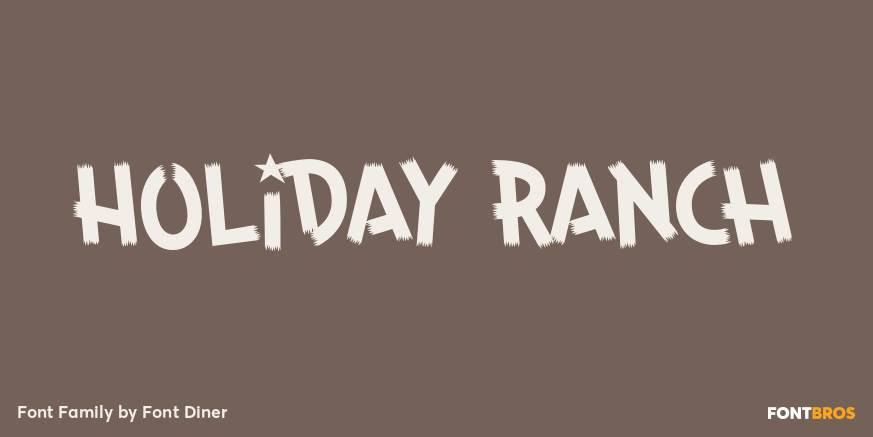
HomeFont BrosRetro (1936-1965)Holiday Ranch Retro (1936-1965)Special EffectWacky Holiday Ranch FacebookXPinterestWhatsApp 1 of 1 About Holiday Ranch Pack your bags! It\’s time to saddle up and head on over to the Holiday Ranch! This playful tipsy font looks like it was painted on with a big fat paintbrush!  DOWNLOAD NOW People also explored Creative Solution Font Homelands Lollijoy Blizzard Font Shurjota Font Millennial Script Bryan Adam Font Khemylau Font Gracela Mersa Font So Lovely Font 317 0 TagsHoliday Ranch Font Previous articleSteelfish SteeledNext articleVice Monogram LEAVE A REPLY Cancel reply Comment: Please enter your comment! Name:* Please enter your name here Email:* You have entered an incorrect email address! Please enter your email address here Website: Save my name, email, and website in this browser for the next time I comment. Personal Use Free Santhony Personal Use Free Read more about this font Vogue Font Personal Use Free Read more about this font Stigma Font Personal Use Free Read more about this font Orchid Personal Use Free Read more about this font BLOG 5 Fonts That Will Dominate Design Trends in 2026 5 Fonts for 2026 That Will Dominate Design Trends Typography plays a critical role in visual communication, and as we look ahead to 2026, it’s... Best Fonts for T-Shirt Design – Top 2025 Picks Elegant Wedding Invitation Fonts – Handwritten & Script Fonts Best Fonts for YouTube Videos: Make Your Thumbnails Stand Out